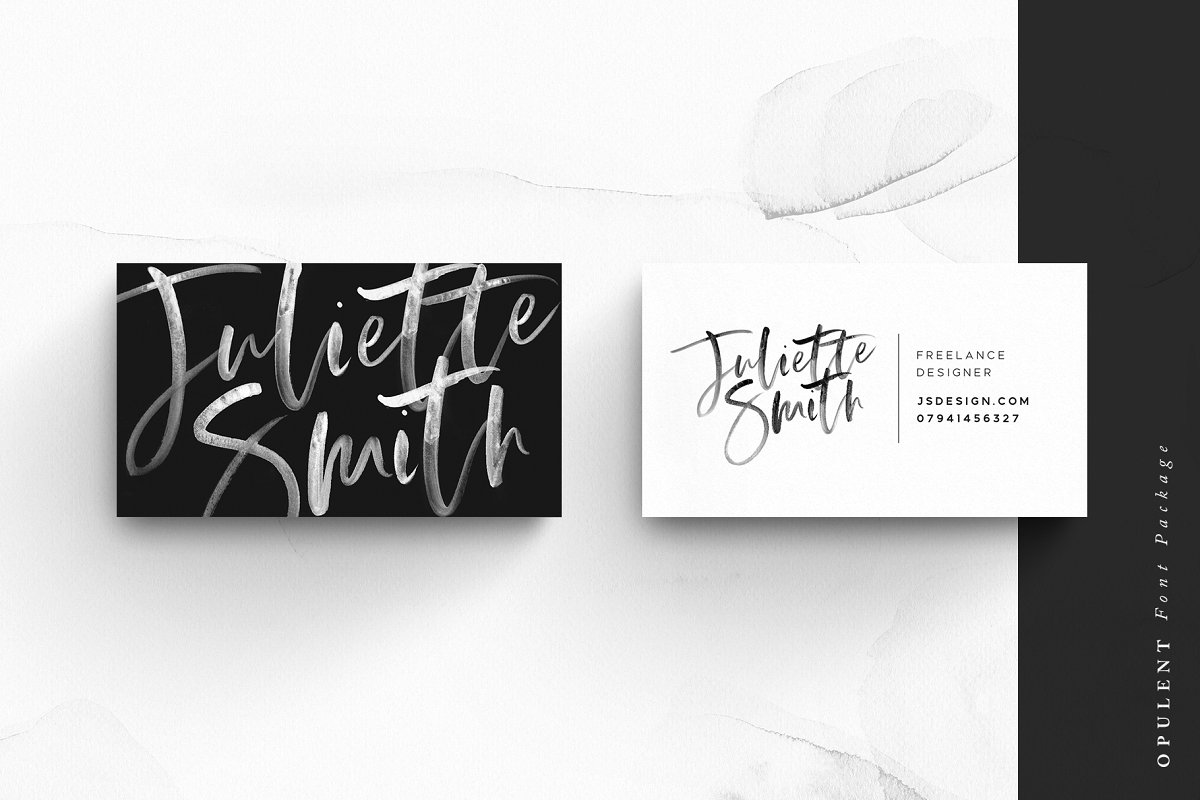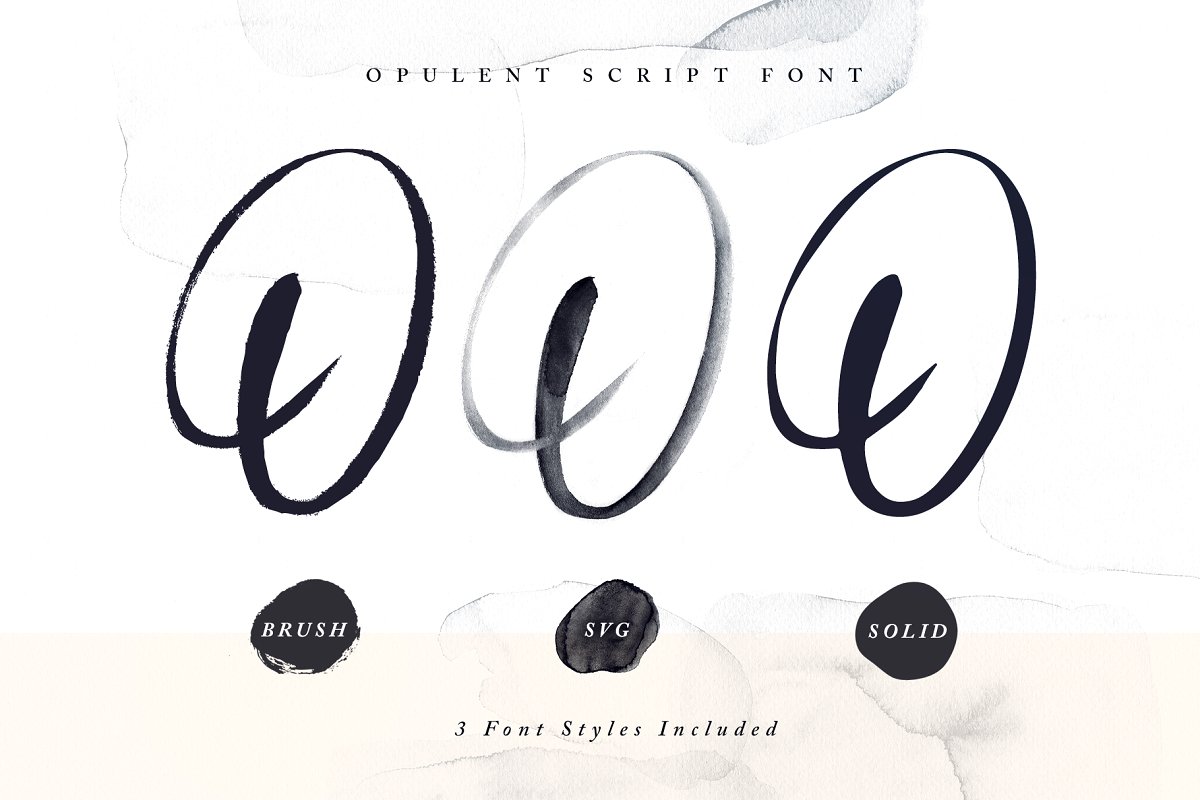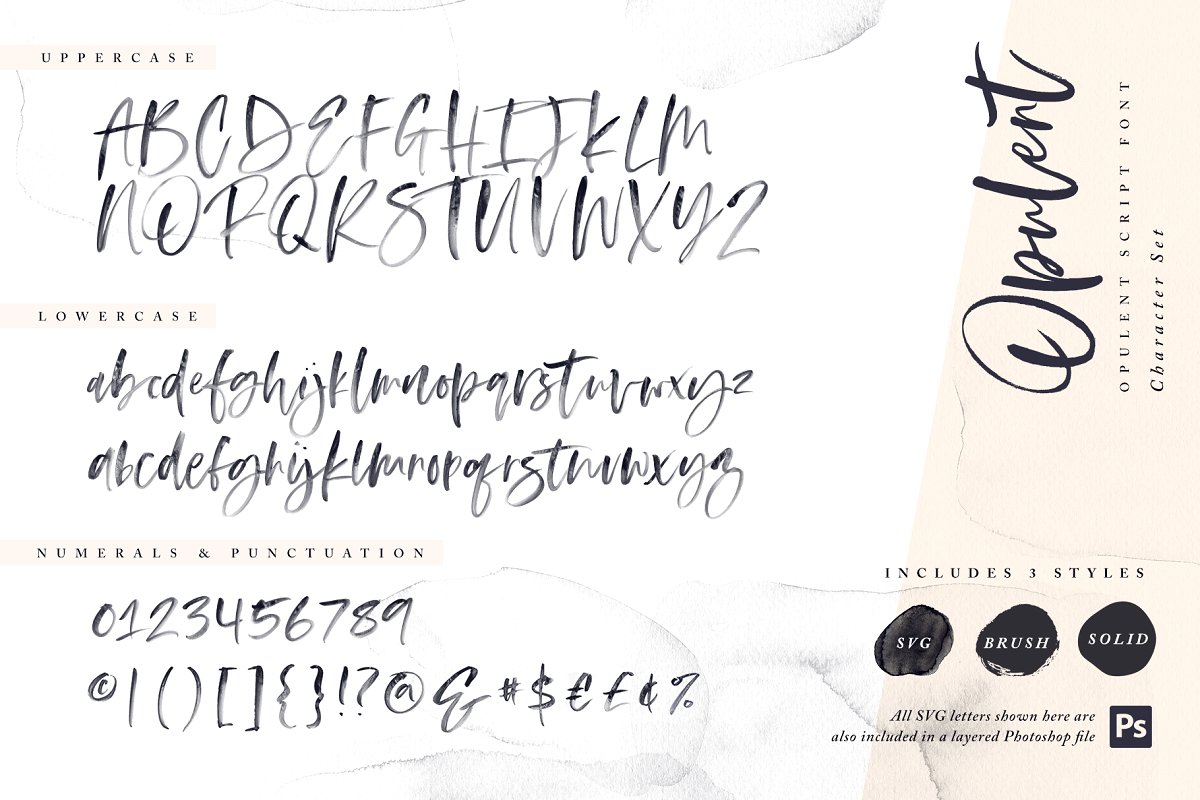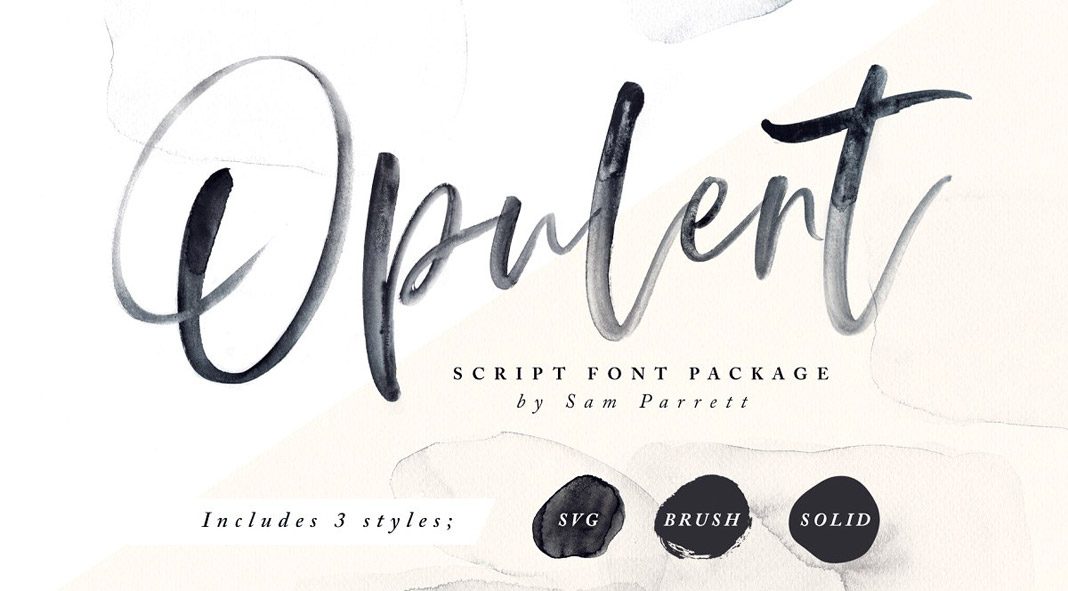
Opulent, a hand-drawn script font by Sam Parrett that offers a natural SVG style.
Designed and released by Sam Parrett in 2018, Opulent is a set of hand-drawn calligraphy fonts that come in three styles, brush, SVG, and solid. Please note! The SVG style requires professional tools such as Adobe Photoshop CC 2017 and Illustrator CC 2018 or newer. You can get their latest versions from the Adobe Creative Cloud website, just have a look here. The brush and solid styles are in a traditional font format. They can be used in all common applications.
The Opulent SVG font can be used to create natural hand-lettering styles with high-definition watercolor textures. The brush font was made for use in a traditional vector format. It still maintains an authentic rough-painted finish. Last but not least, the solid version is what you need to add a silkier smooth finish to your text. It’s well suited for vinyl cutters such as Cricut and Silhouette Cameo.